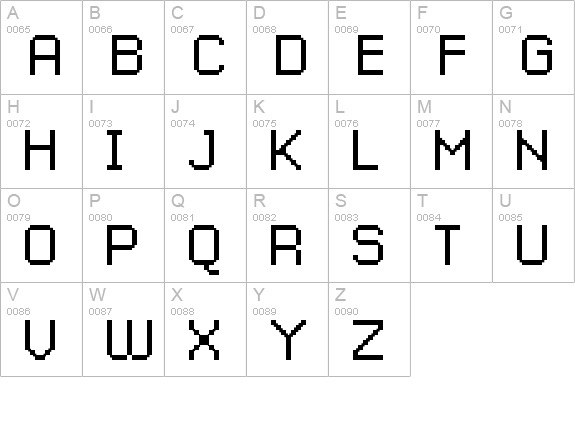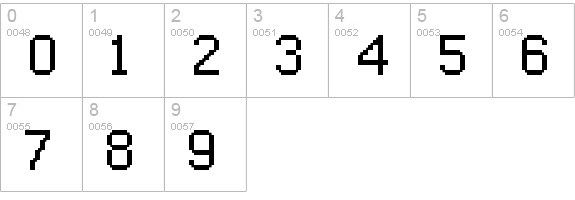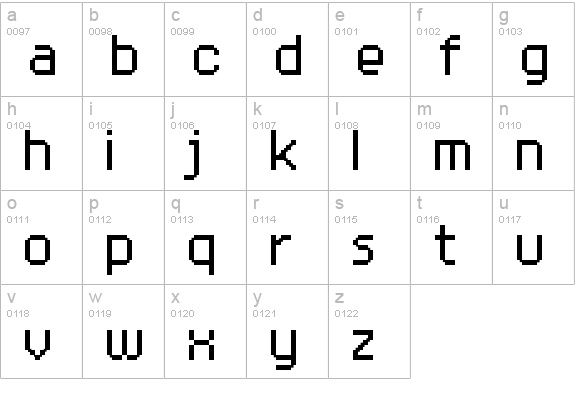
FFF Protege Extended is a distinctive, extended-width variant in the FFF typeface family \xE2\x80\x94 well suited to design and typography projects.
The FFF Protege Extended font is a versatile and modern typeface that exudes sophistication and elegance. With its sleek and elongated letterforms, this font is perfect for creating eye-catching designs for various projects such as branding, posters, packaging, and more. The FFF Protege Extended font offers a unique blend of contemporary style and classic elegance, making it a versatile choice for both digital and print applications. Best of all, the FFF Protege Extended font is available for free download at FontsMarket.com. This means that you can easily access and use this stunning font in your projects without any cost. Whether you're a seasoned designer looking for a fresh typeface or a beginner exploring different font options, the FFF Protege Extended font is a fantastic choice that will elevate your design work to the next level. Don't miss out on this amazing opportunity to enhance your creations with this beautiful and free font!